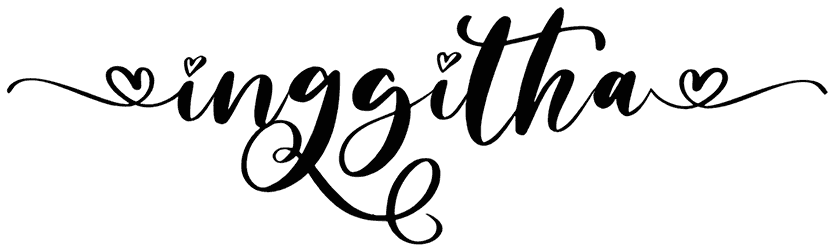
Inggitha Font
Inggitha is a flowing poetry font that was designed to make it easier to convey your feelings of elegance through your artwork. It has a romantic appearance that is formulated with breathtakingly delicate feminine details.
It can bring immense prominence to your projects, like print media, tattoos, romantic writings, as well as fashion shows. Give it a shot, and see if the experience doesn’t lead to the discovery of something wonderful, engaging, and exciting.